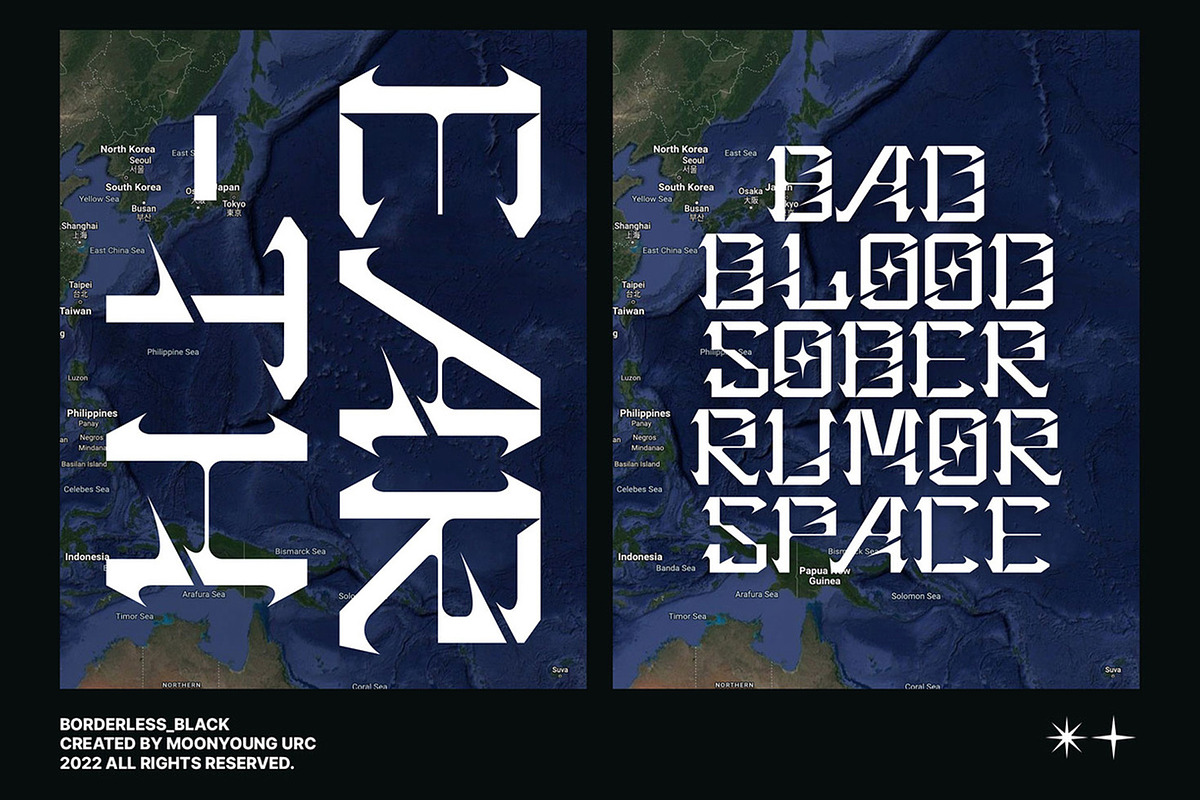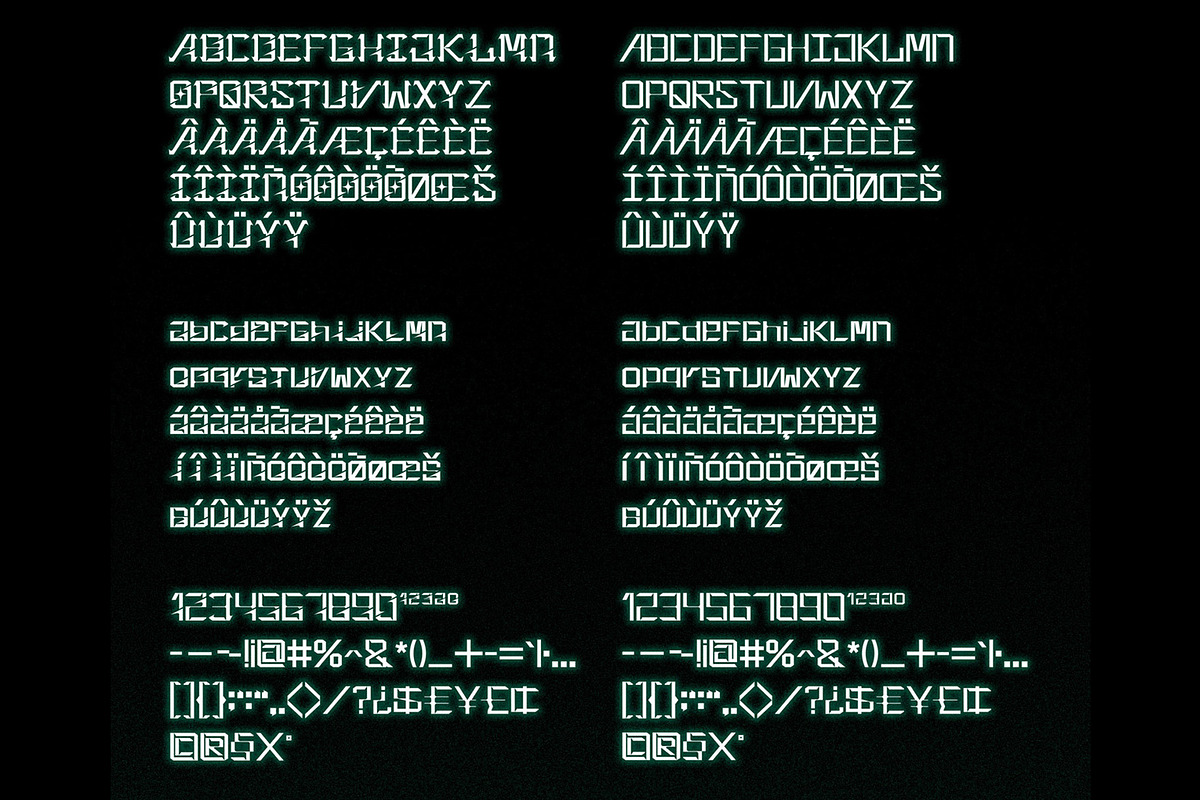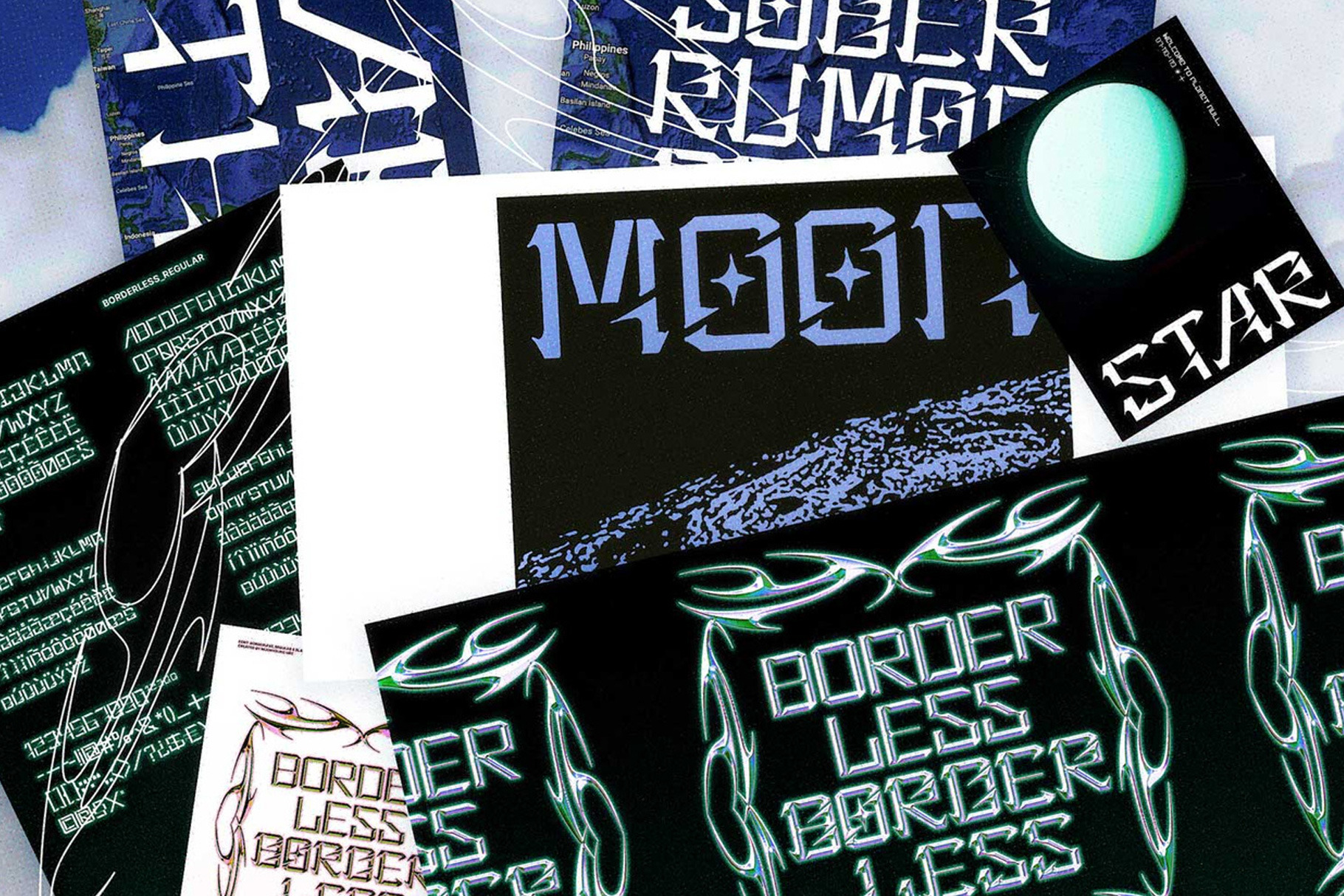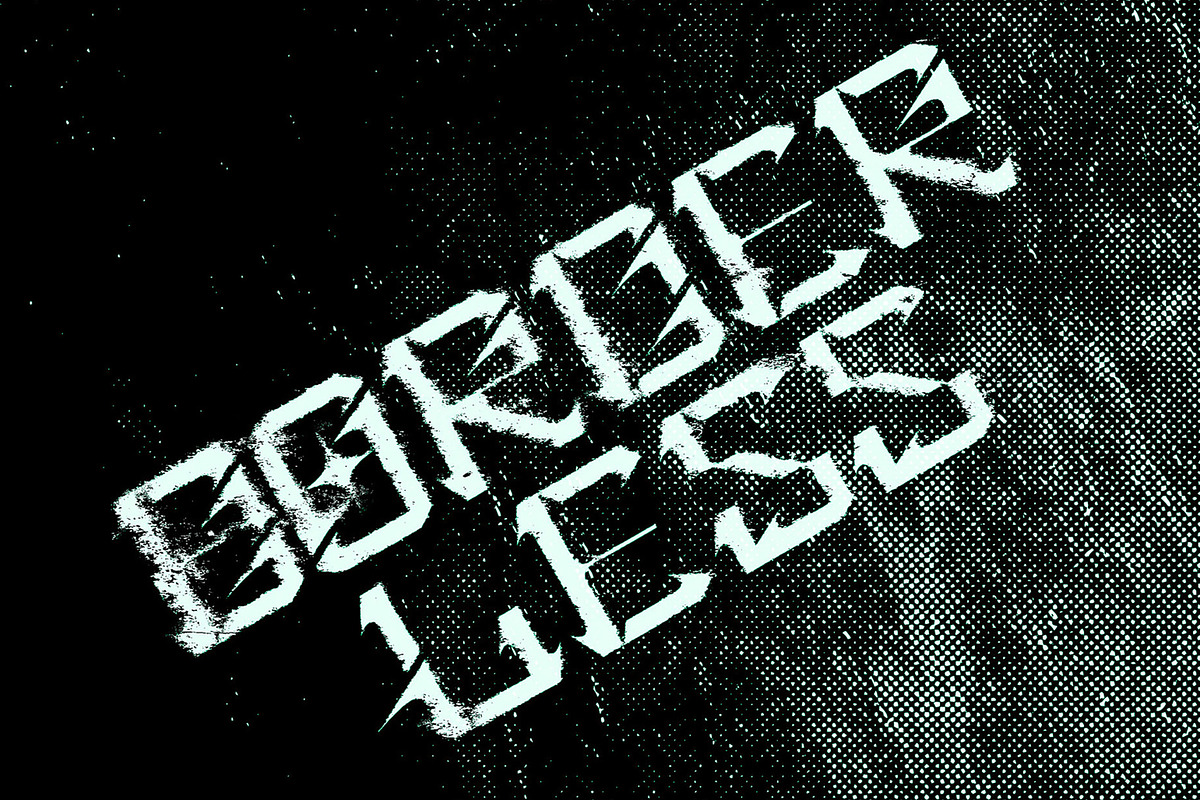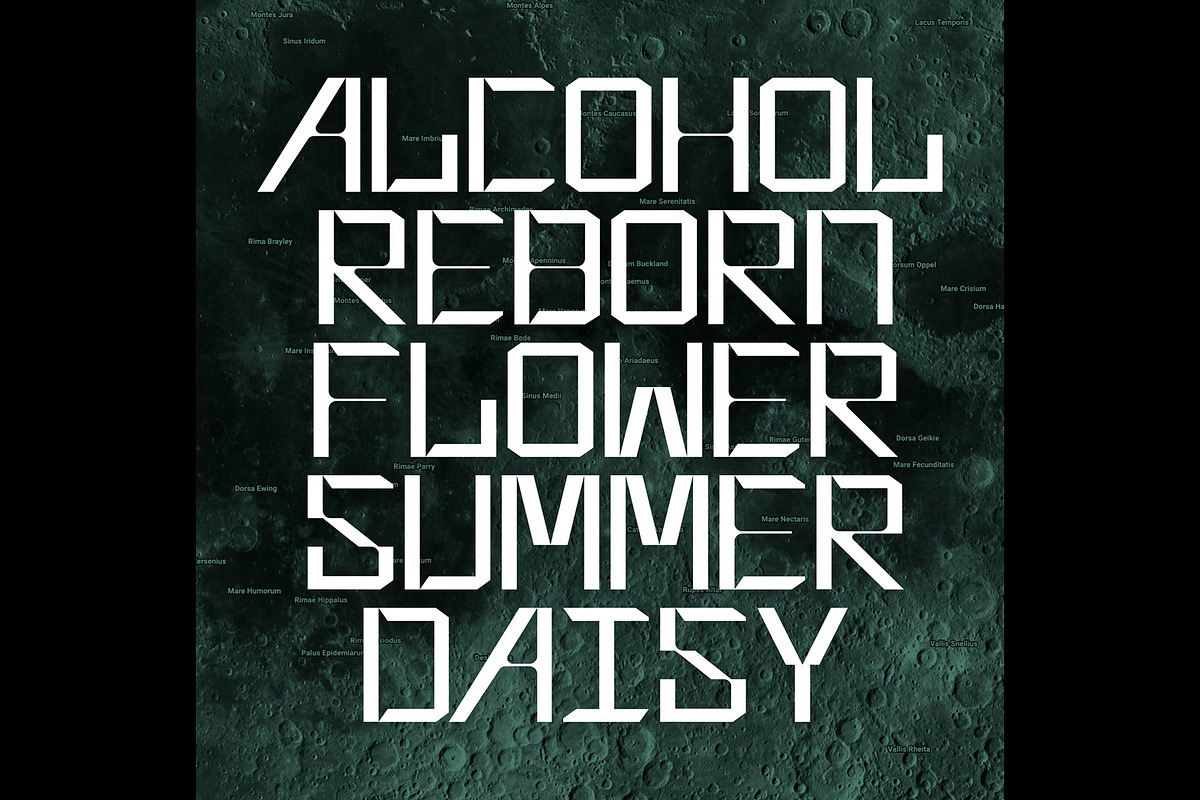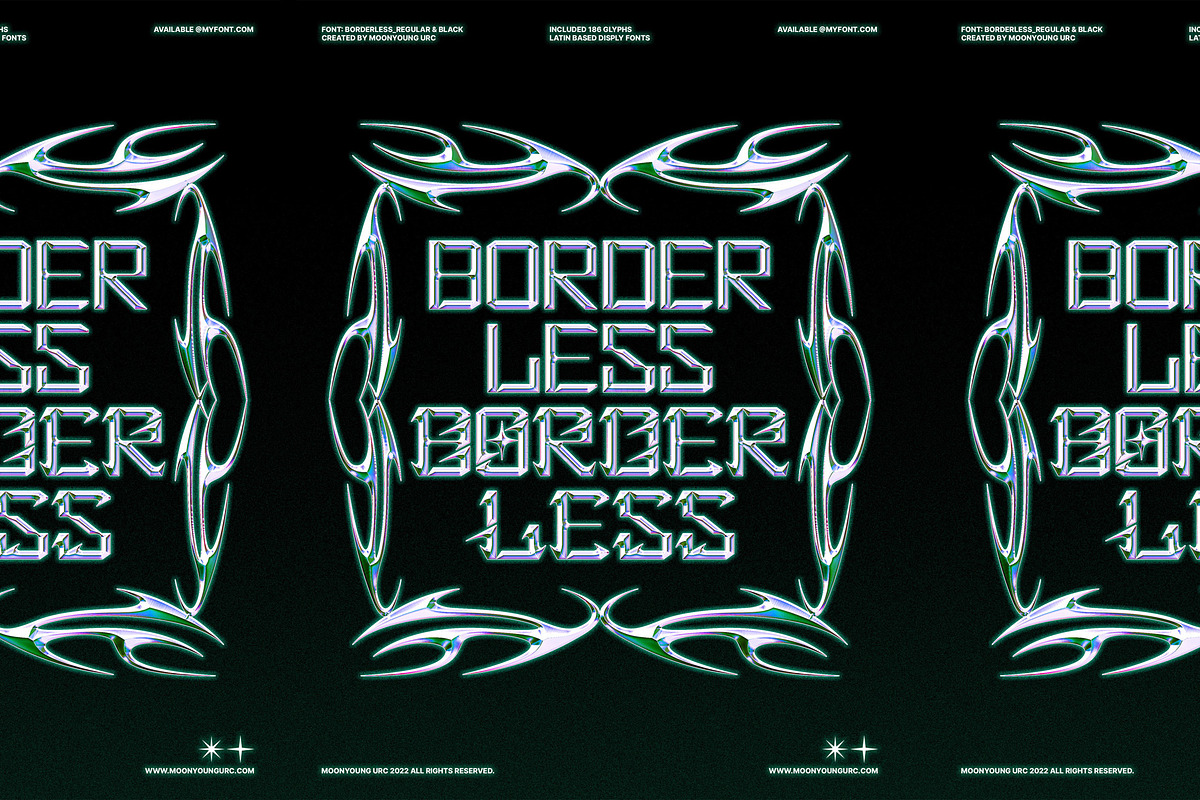
Font Borderless
This font is characterised by a sleek shape.There are two versions, regular and black. instagram: @mmonyoung_urc OHSOCOOL studio
-Uppercase and Lowercase -Number and Punctuation